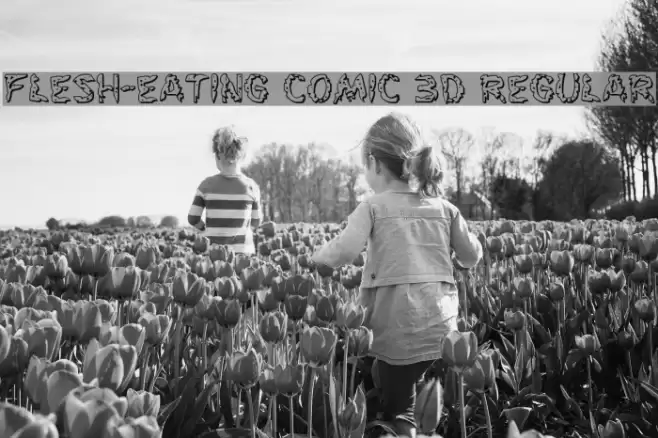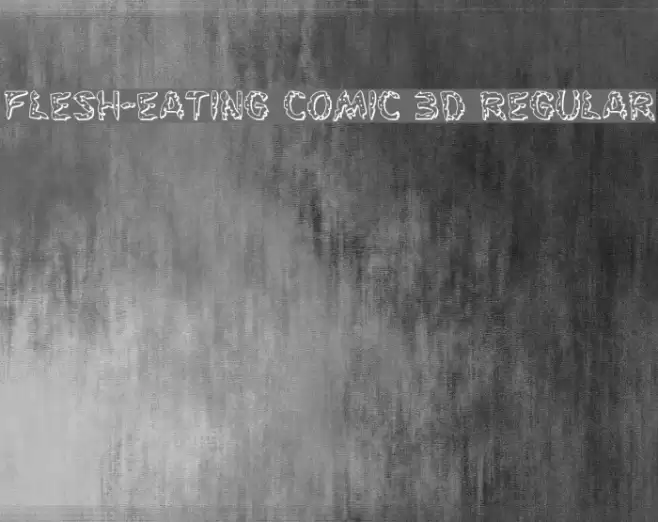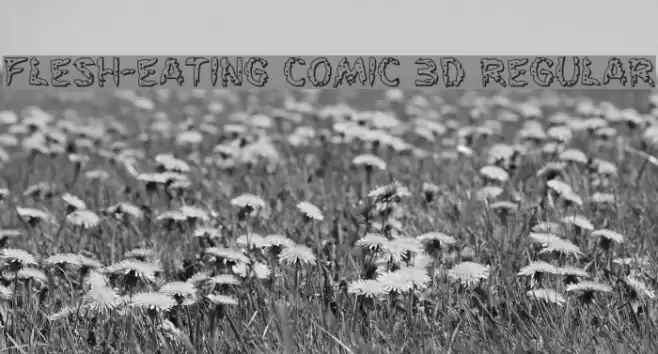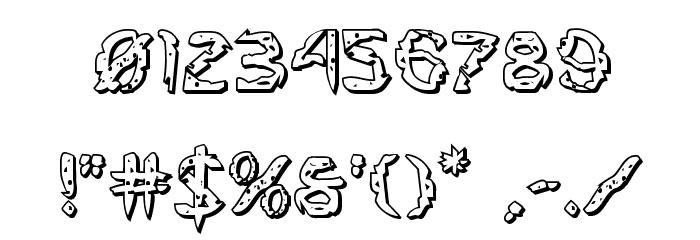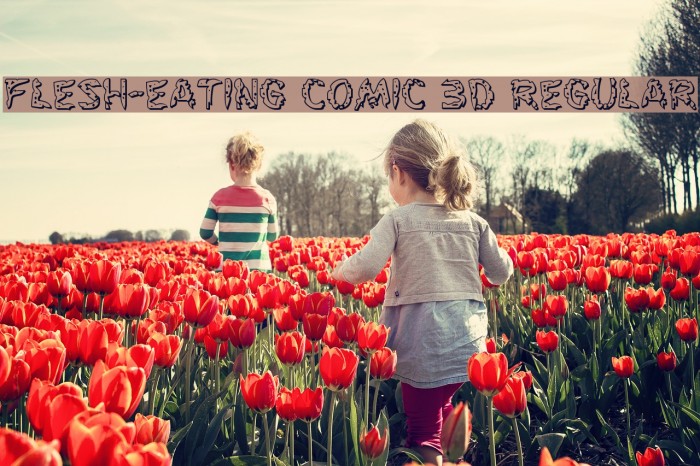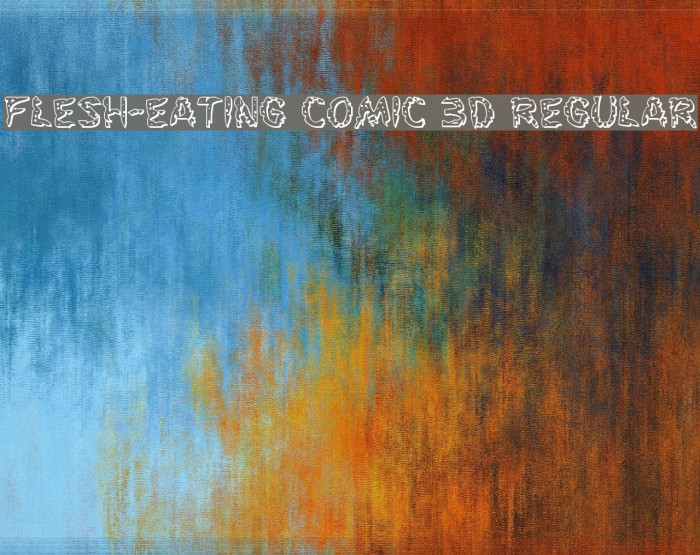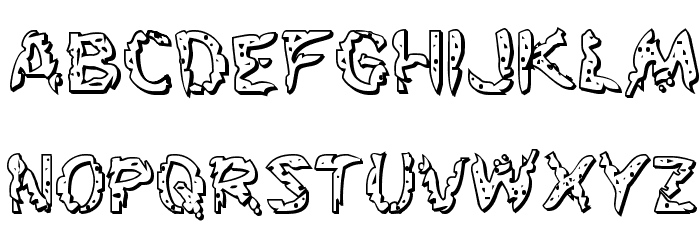
Flesh-Eating Comic 3D Regular Font
Flesh-Eating Comic 3D Regular Description
This font features a bold, comic-style design with a three-dimensional effect that gives it a unique and playful appearance. The letters are outlined with irregular, jagged edges, resembling a flesh-eating or decaying texture, which adds a dramatic and eye-catching element. The uppercase and lowercase letters maintain a consistent style, with exaggerated curves and angles that enhance the overall comic book aesthetic. Numbers and special characters follow the same design principles, ensuring a cohesive look across all text elements. This font is perfect for projects that require a bold, adventurous, and slightly eerie vibe.
A bold, comic-style font with a 3D effect and jagged, decaying edges from Uncategorized fonts.
- Proposed Projects: Ideal for comic books, horror-themed posters, Halloween invitations, and video game graphics.